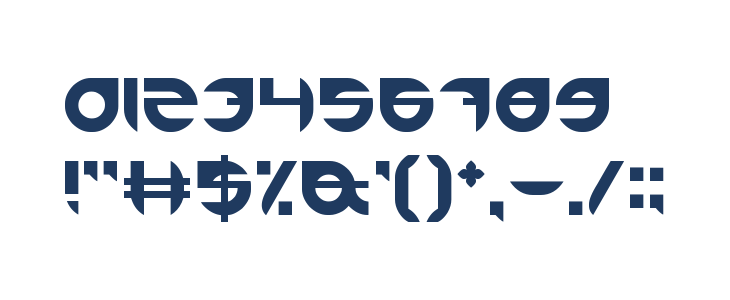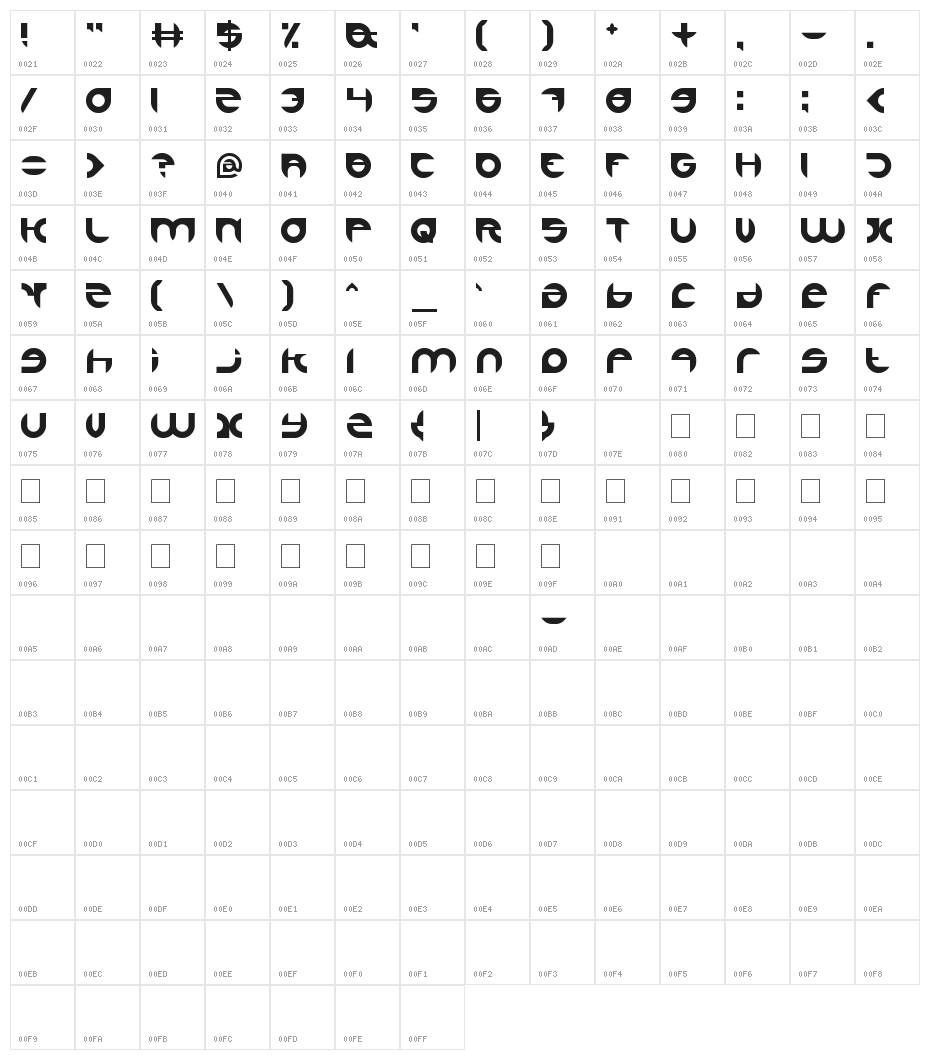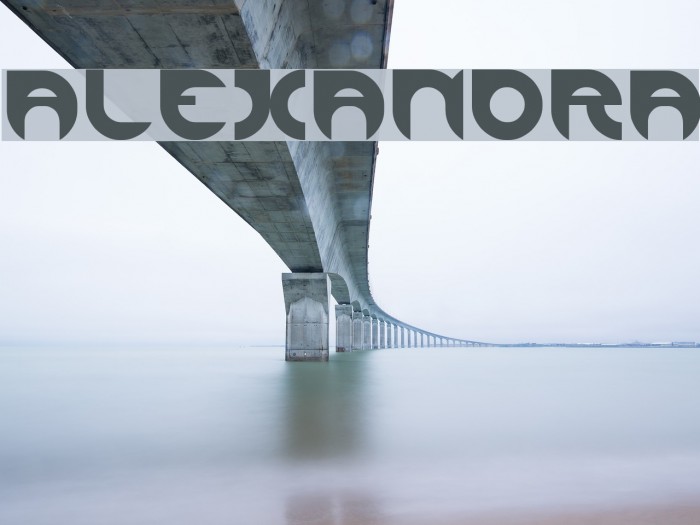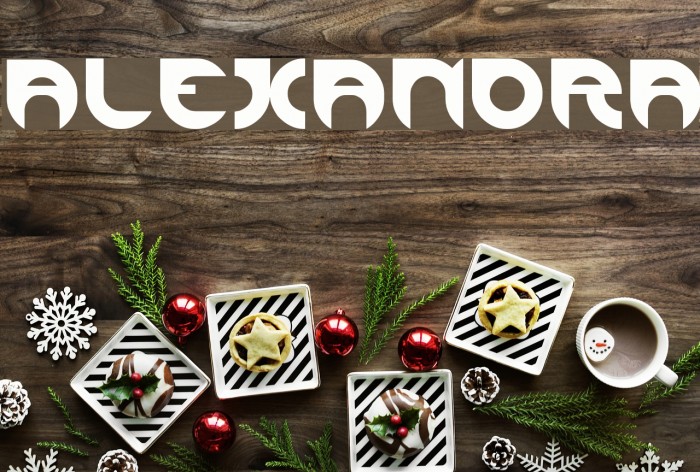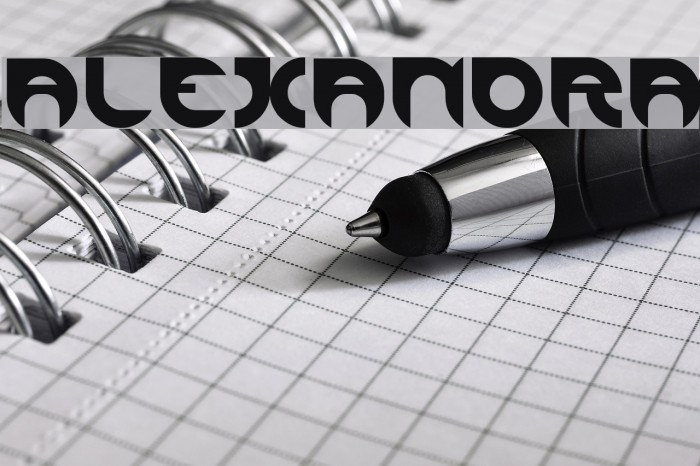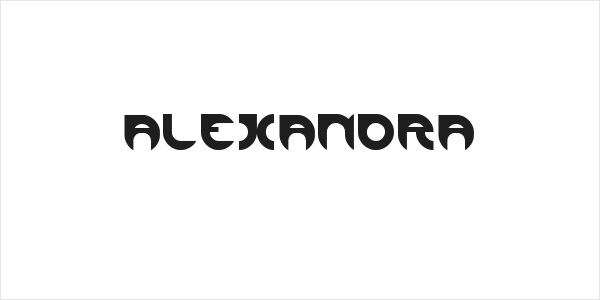
ALEXANDRA Font
ALEXANDRA Description
This font features a bold and futuristic design with geometric shapes and sharp angles. The characters are constructed with a unique blend of curves and straight lines, creating a visually striking appearance. The uppercase and lowercase letters maintain a consistent style, with a strong emphasis on symmetry and balance. Numbers and special characters are designed to complement the overall aesthetic, making this font suitable for modern and tech-oriented projects. The boldness of the strokes adds to its impactful presence, while the spacing between characters is tight, enhancing its compact look.
| Proposed Projects | Ideal for technology branding, sci-fi posters, video game titles, and modern logos. |